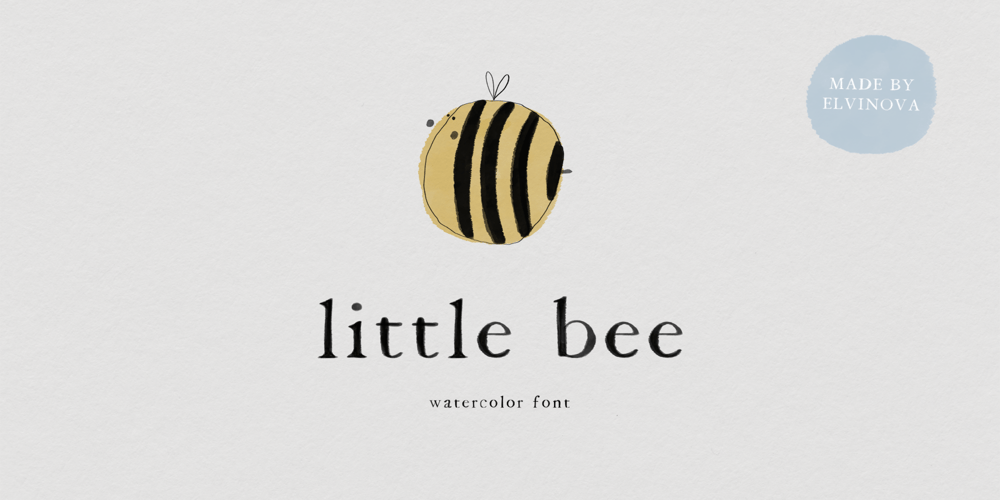
Little Bee Vector
Little Bee Vector font
Little Bee Vector Font Family was designed by Elvina Gafarova and published by Elvina Studio. Little Bee Vector contains 2 styles and family package options. Little Bee is a cute serif typeface. Perfect for logos, cards, posters and other designs. So sweet and lovely ๐Ÿ™‚